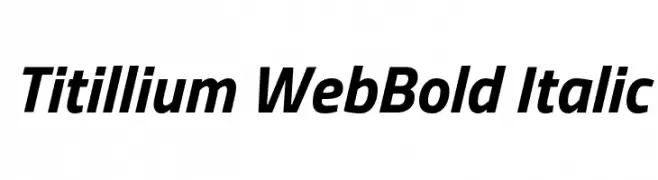
A bold, italicized font with a modern, dynamic style.
A modern, italicized font with a sleek, geometric design.
A modern, bold, and italicized font with a sleek and dynamic appearance.
A modern, italicized font with clean lines and a dynamic appearance.